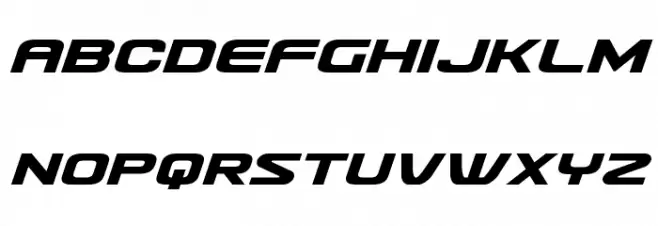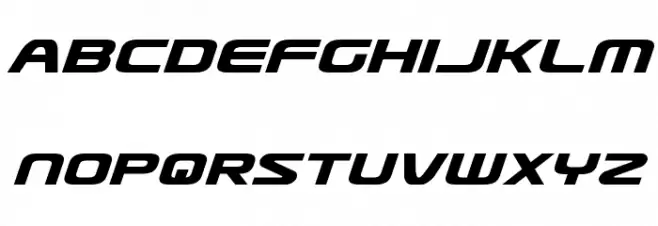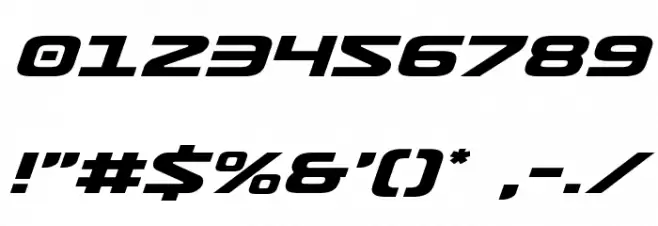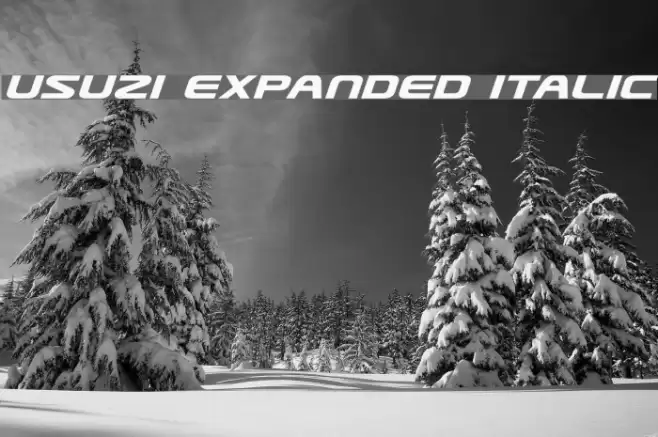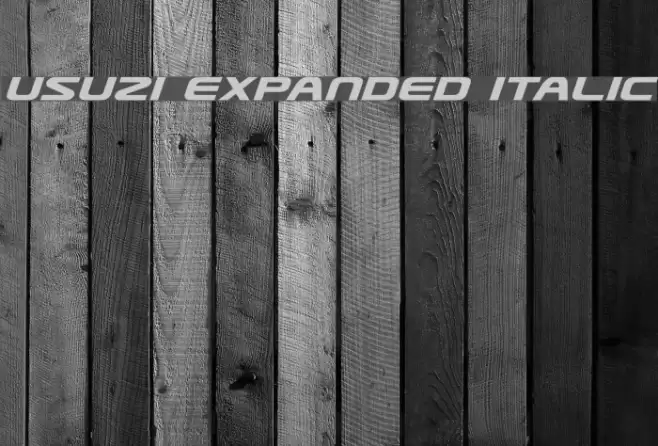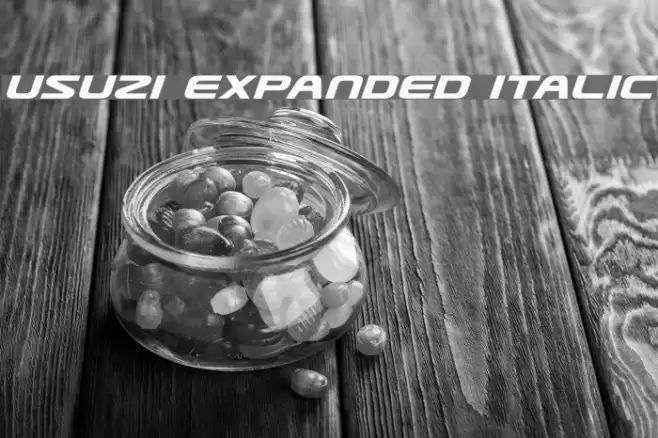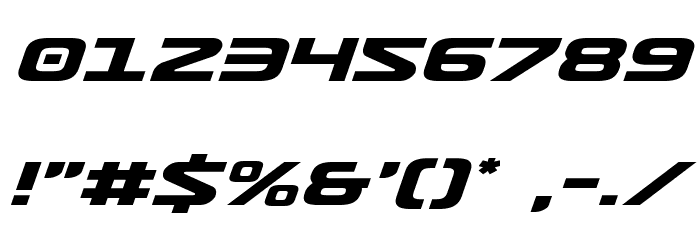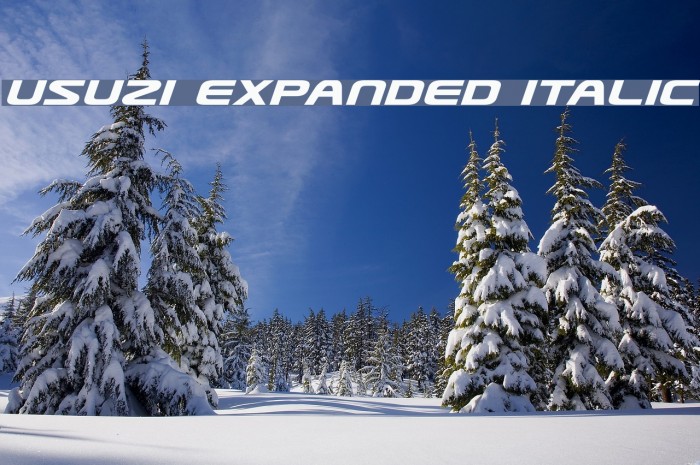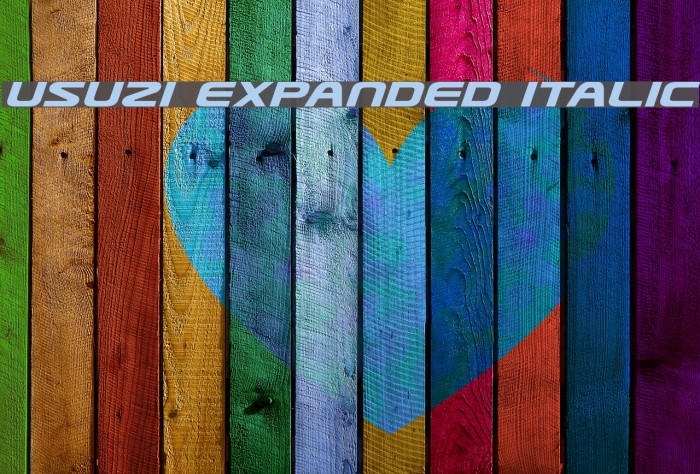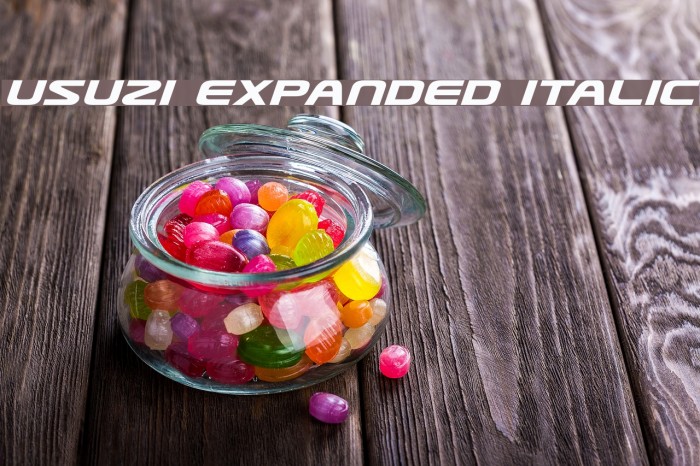
Usuzi Expanded Italic
This font features a sleek, modern design with an italicized style that gives it a dynamic and forward-moving appearance. The characters are expanded, providing a sense of openness and readability. The strokes are consistent, with a medium contrast that adds to its contemporary look. The font's geometric shapes and clean lines make it suitable for a variety of design projects, offering a professional yet stylish aesthetic.
A modern, italicized font with expanded characters and medium contrast.
- Proposed Projects: Ideal for branding, advertising, sports team logos, and dynamic web design.
- Width: Expanded
- Use Case: Headlines, Logos, Advertising